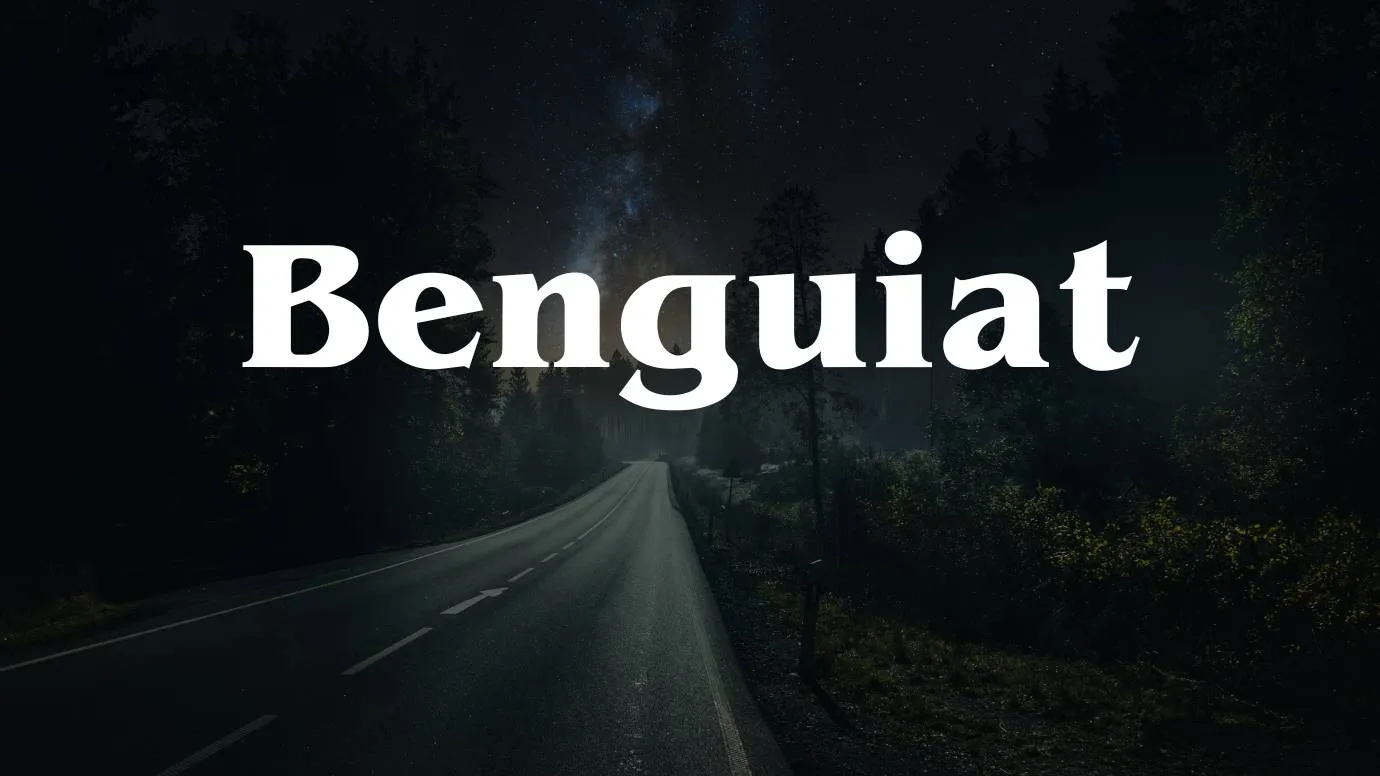
Benguiat Font family falls in the category of the slab serif family and has a cohesive look. Ed Benguiat is the real manufacturer of this classic typography. The geometric form and refined serif characters of this font make it impressive.
| Name | Benguiat Font |
| Type | Slab Serif |
| Designer | Ed Benguiat |